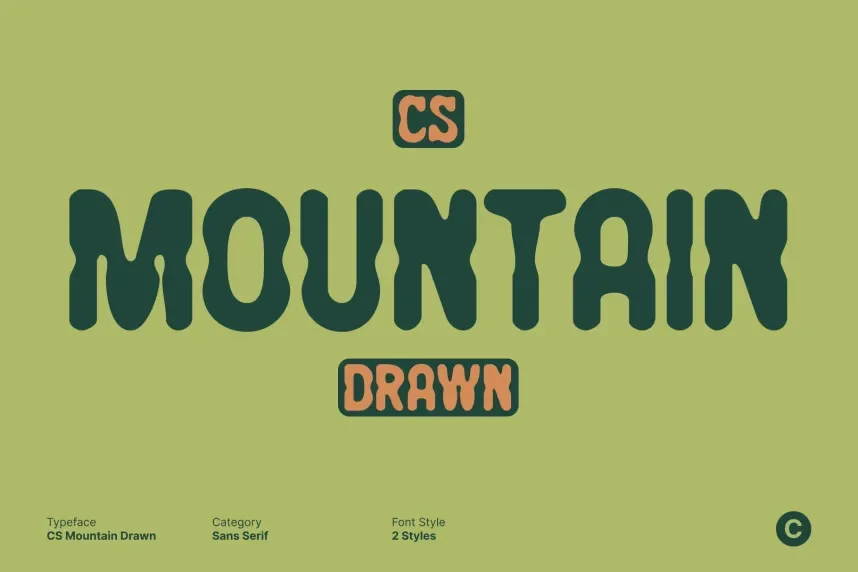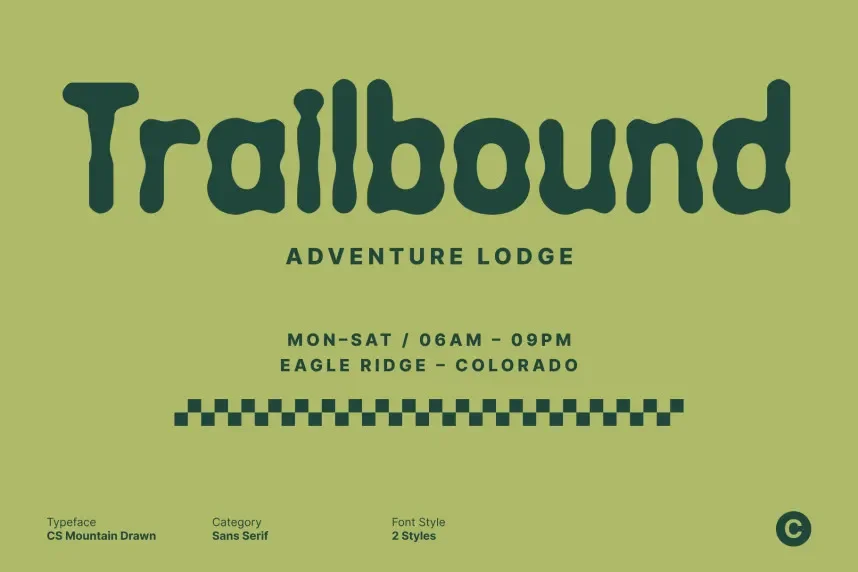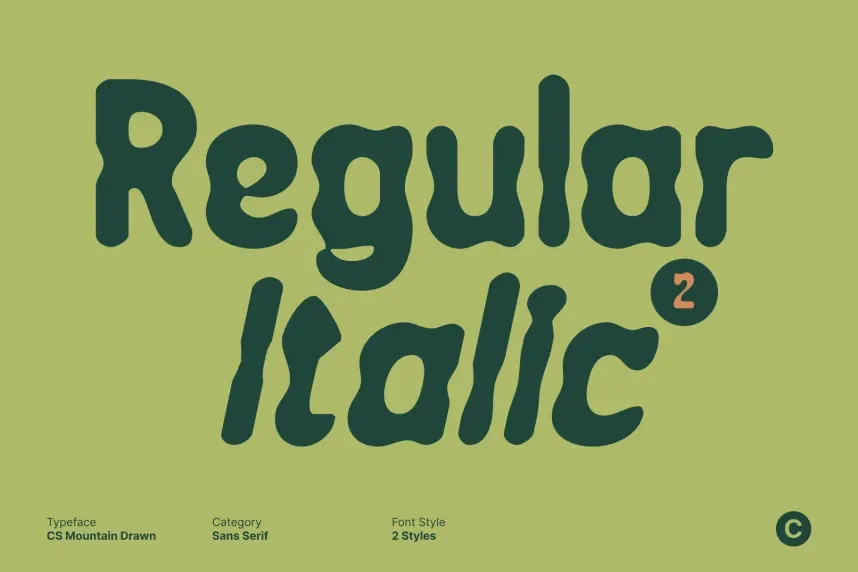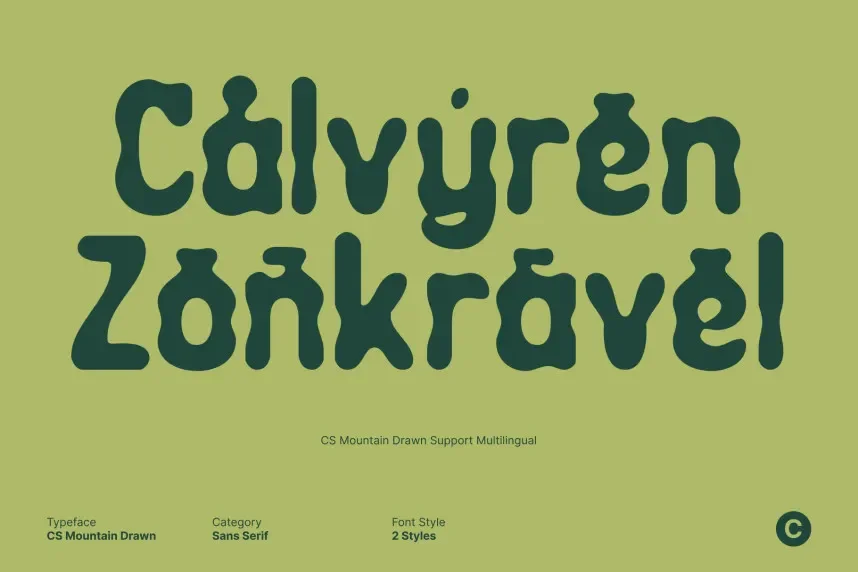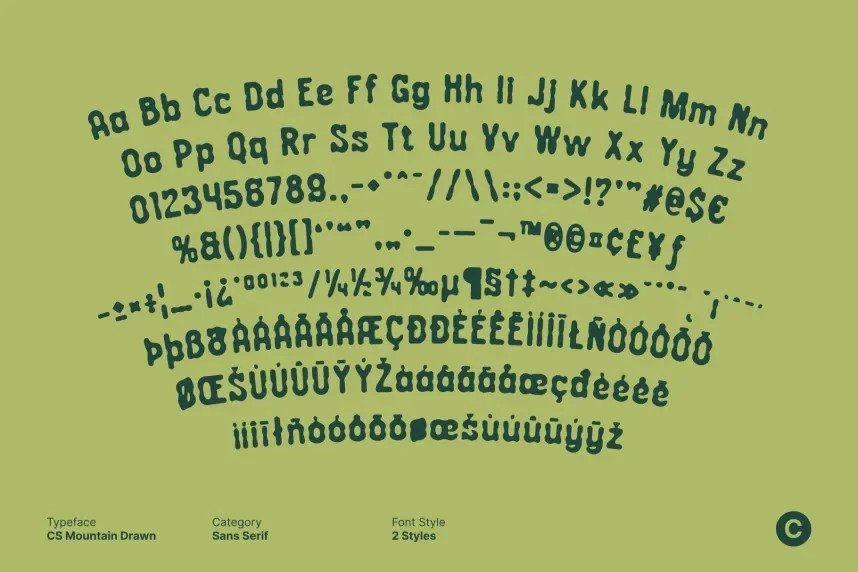
CS Mountain Drawn Font is a display font designed for projects that require a rugged yet stylish appearance. With its strong, angular strokes and rough edges, it works well for adventurous brands, outdoor gear, and event posters. The font maintains readability, even in larger sizes, due to its bold structure.
Perfect for headings, posters, and logo designs, CS Mountain Drawn Font brings a sense of strength and exploration. It pairs well with simple, clean fonts like sans-serifs to maintain legibility. This font is available in TTF and OTF formats and includes a commercial license for both personal and business use. Ensure to verify the license for commercial projects.